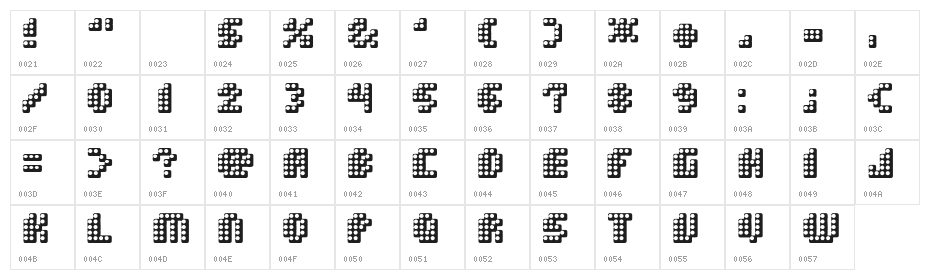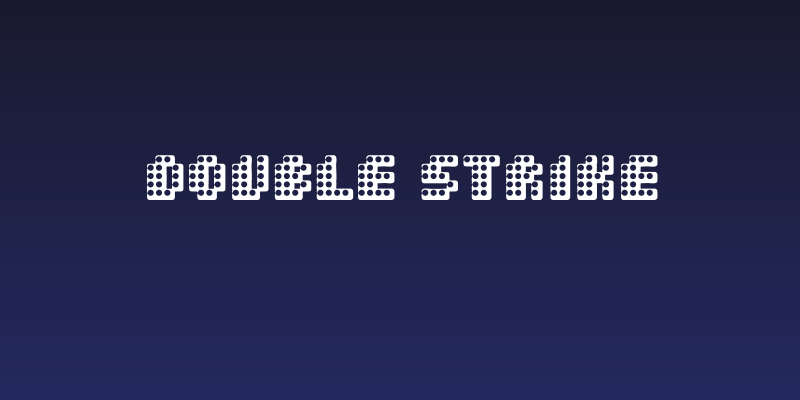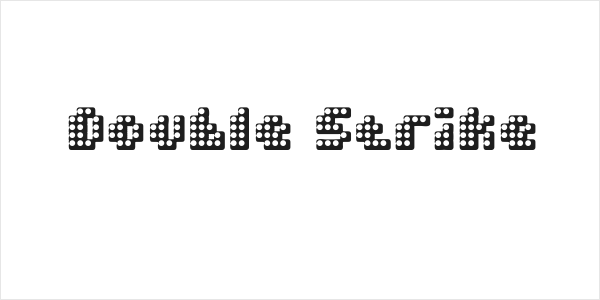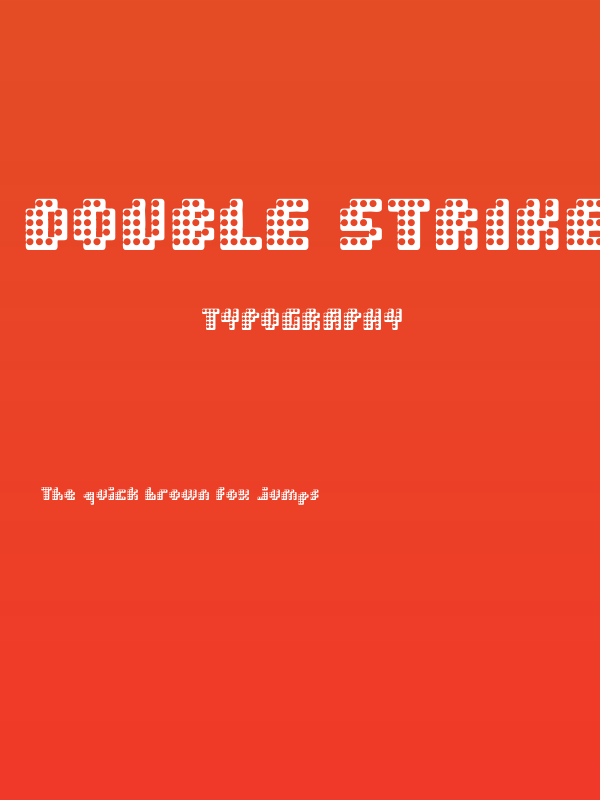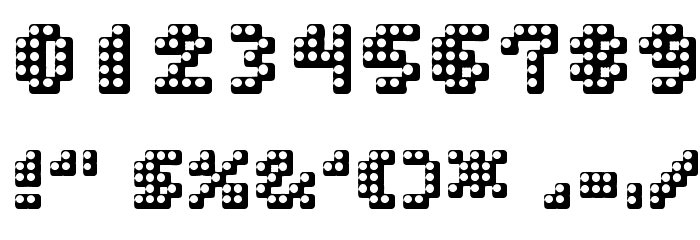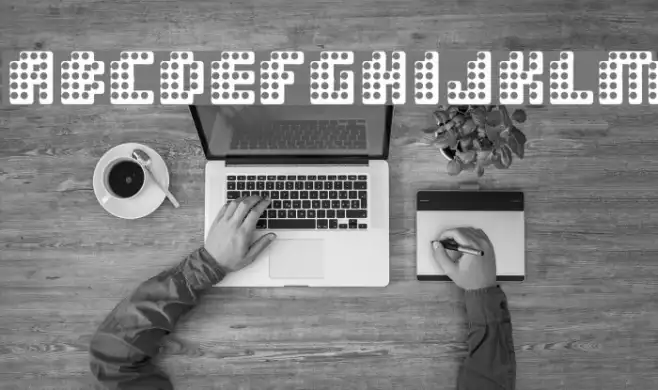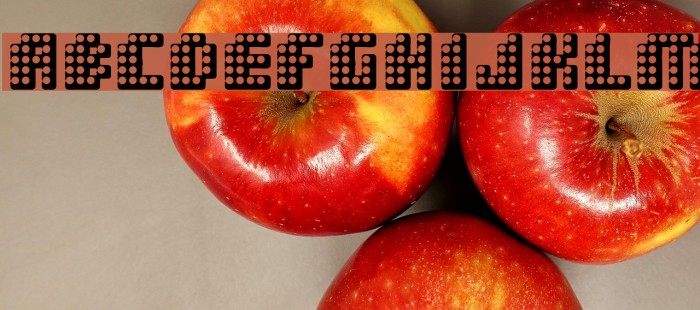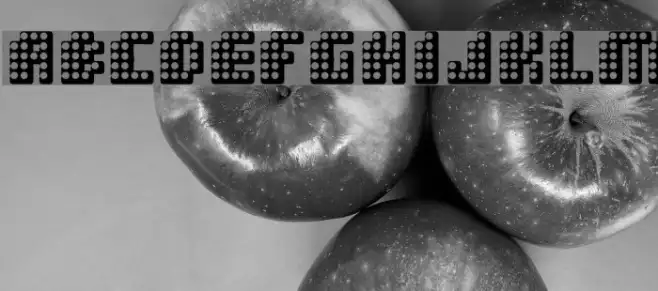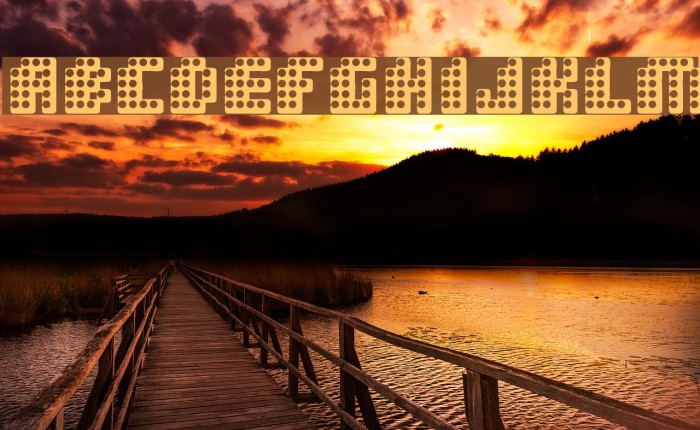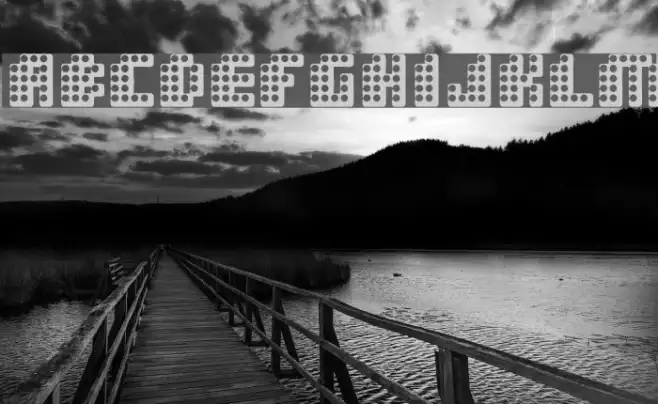
Double Strike Font
Double Strike Description
This font features a unique design where each character is composed of a series of dots arranged in a grid pattern, creating a bold and playful appearance. The characters are blocky and geometric, with a consistent dot pattern that gives them a cohesive look. The use of dots adds a textured, almost pixelated effect, making it stand out as a decorative typeface. The font maintains uniformity across uppercase, lowercase, numbers, and special characters, ensuring readability while retaining its distinctive style. The overall aesthetic is modern and digital, reminiscent of retro video game graphics or LED displays.
| Proposed Projects | Ideal for digital displays, retro-themed designs, video game graphics, posters, and creative branding projects. |